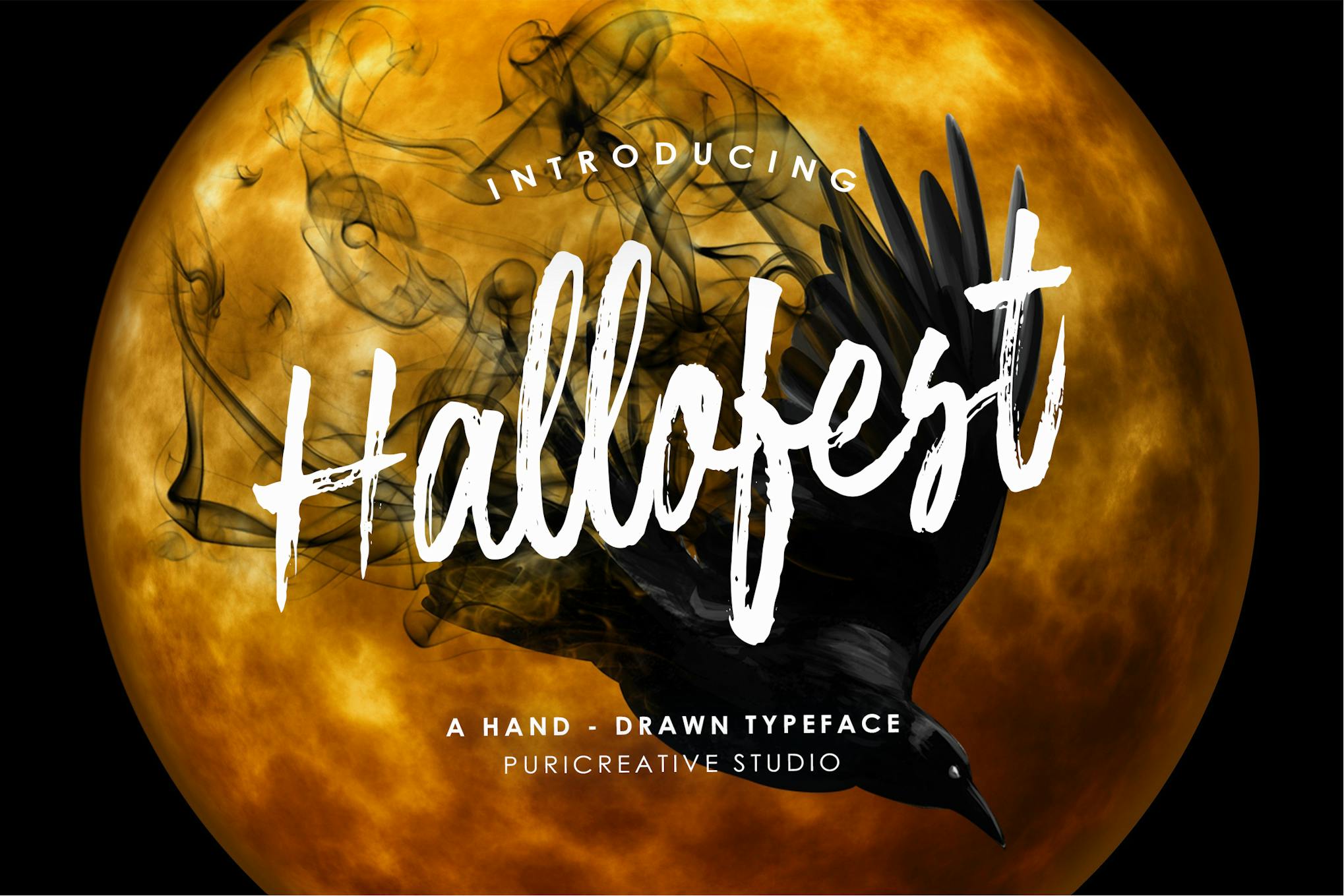
Hallofest - Handwriting Brush Font
Hallofest Font Free Download is ideal for a range of creative projects, such as invitations, greeting cards, product packaging, and social media posts. Its organic, hand-drawn style adds a personal, artistic touch to branding, event promotions, and crafty DIY designs.
Why is Hallofest Font so exciting? This handwriting brush font captures the charm of authentic, hand-painted lettering, bringing warmth and personality to any project. Its dynamic strokes and playful vibe make it perfect for designs that need to feel approachable yet bold, ensuring your work stands out.
The Hallofest font family includes regular, bold, and italic variants, providing flexibility for different design intensities. Whether you need a subtle script for delicate designs or a bolder version for impactful headlines, this family delivers.
Elevate your creative projects with Hallofest Font Free Download, a font that combines the beauty of handwritten artistry with modern versatility. Its brush-style strokes are perfect for adding a unique flair to logos, posters, or merchandise like t-shirts and mugs. Designers and businesses alike love Hallofest for its ability to convey authenticity and creativity, making it a top choice for boutique brands and event planners.
With Hallofest Font Free Download, you can experiment with its expressive style to bring your ideas to life. This font shines in both digital and print media, from Instagram stories to wedding invitations, offering a handcrafted feel that resonates with audiences. Download it now to test its potential, but ensure you secure a commercial license for professional use. Hallofest Font empowers you to create designs that feel personal and engaging, making it an essential addition to your typography toolkit in today’s vibrant design world.